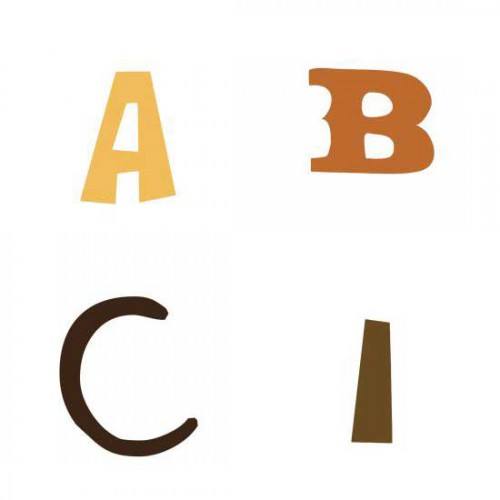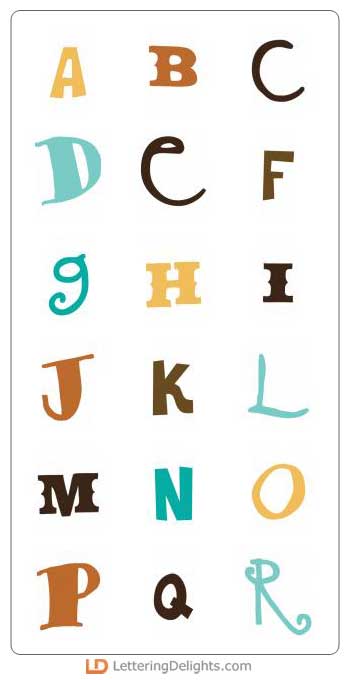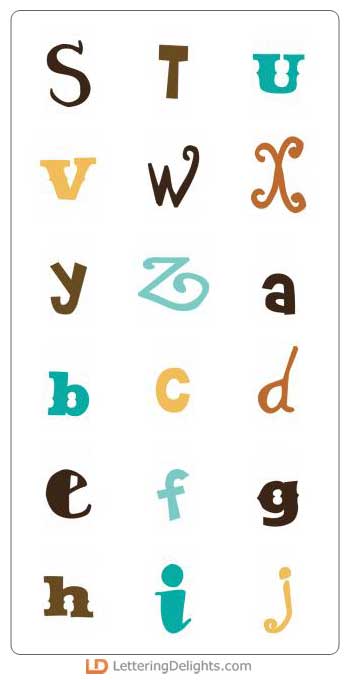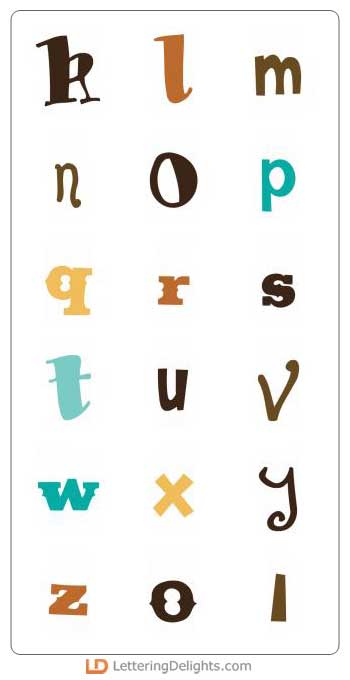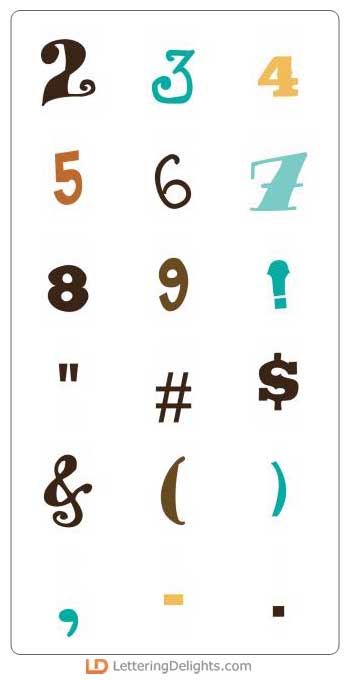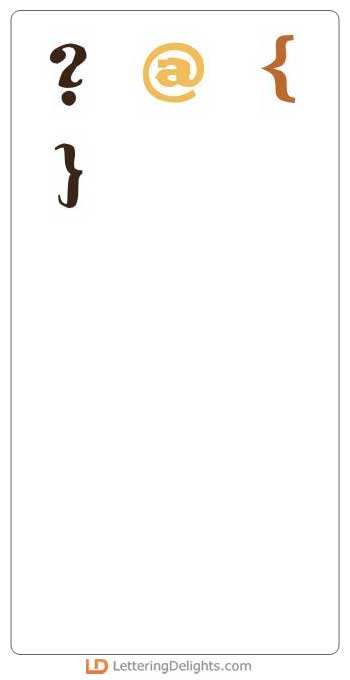
The beautiful colors of fall, plus the clear blue of an Autumn sky...That's what you'll find in the Fall bounty Alphabet. Note how perfectly this alphabet pairs with all the elements found in the Pilgrims & Indians Collection.